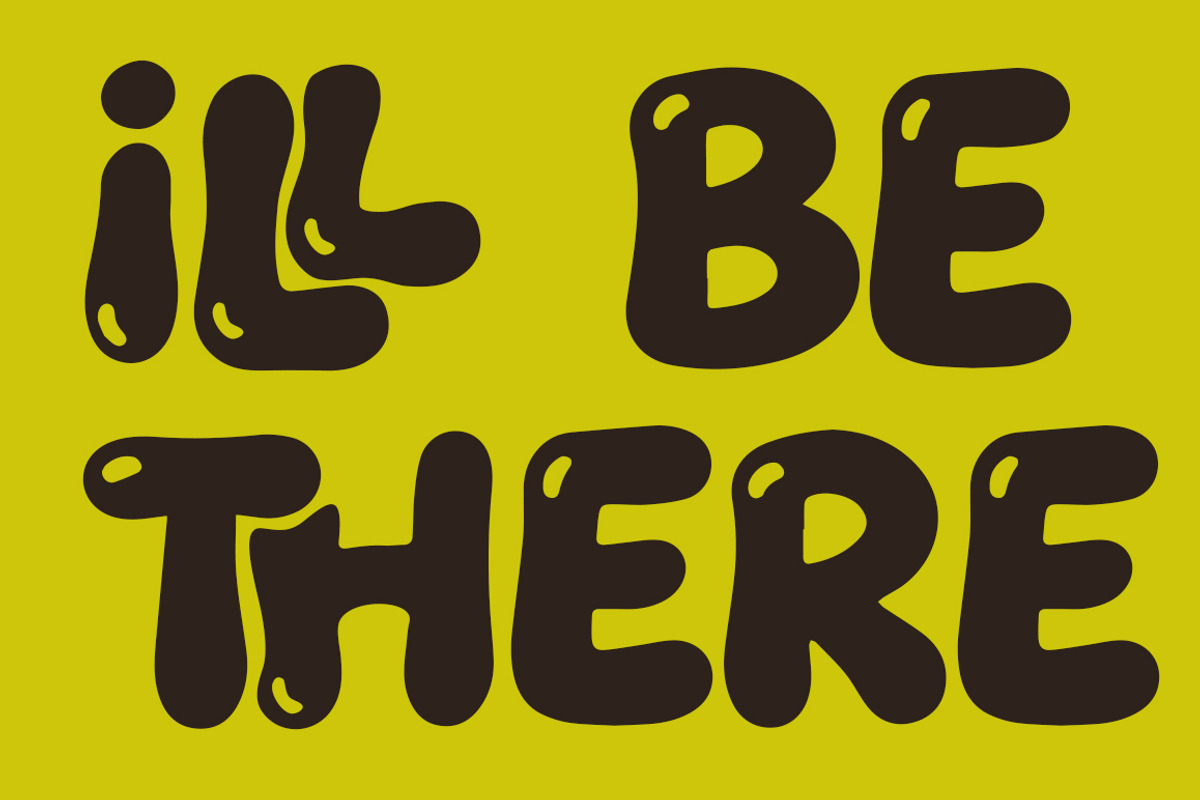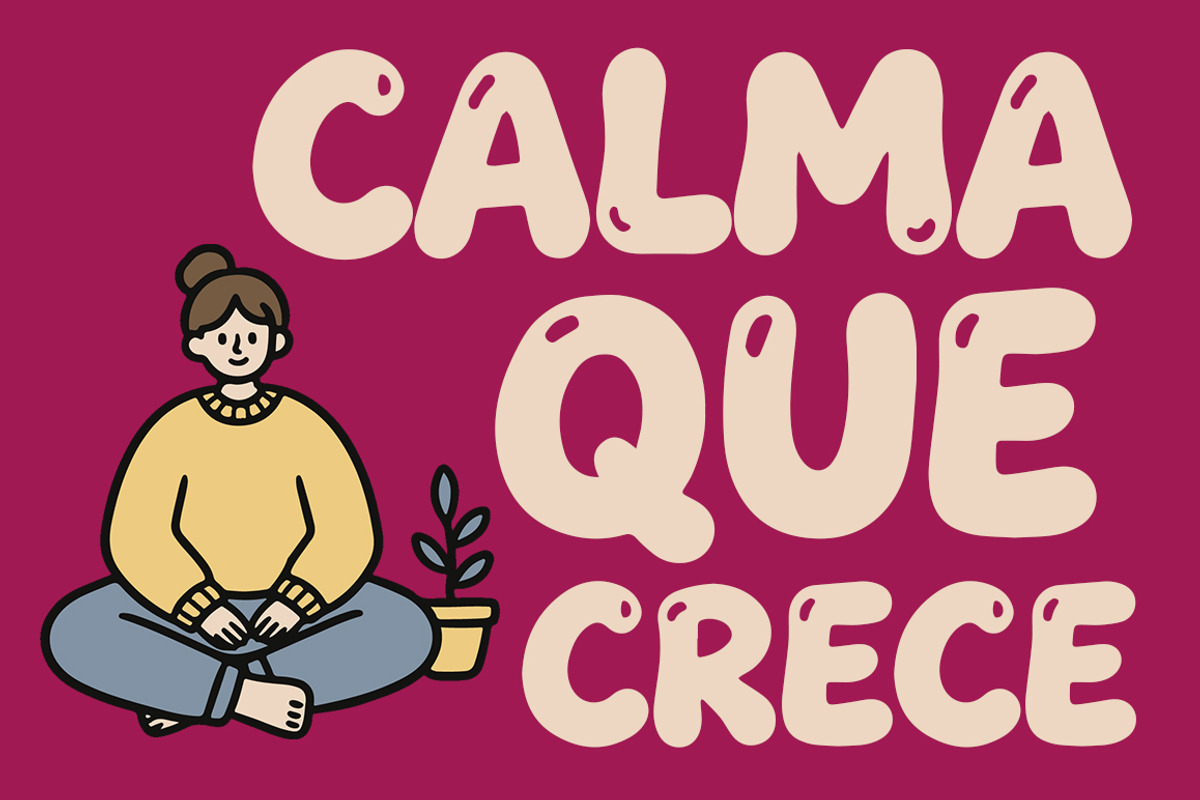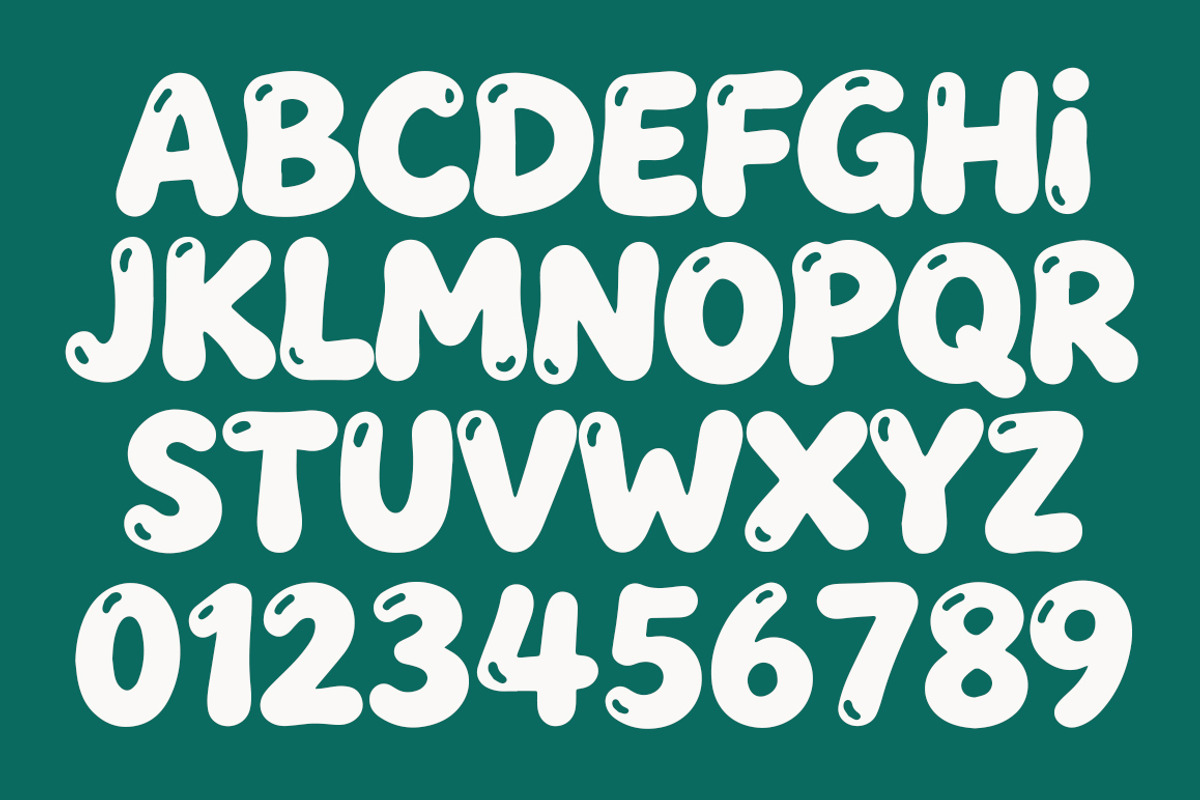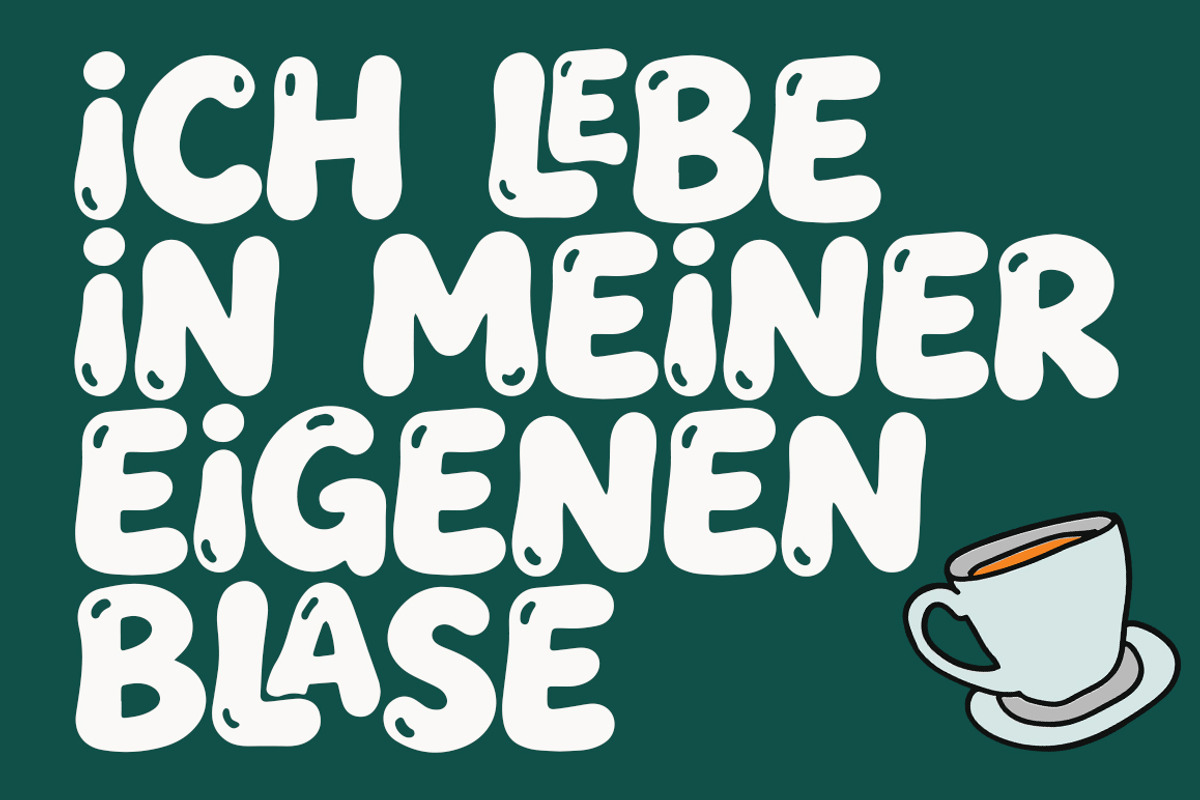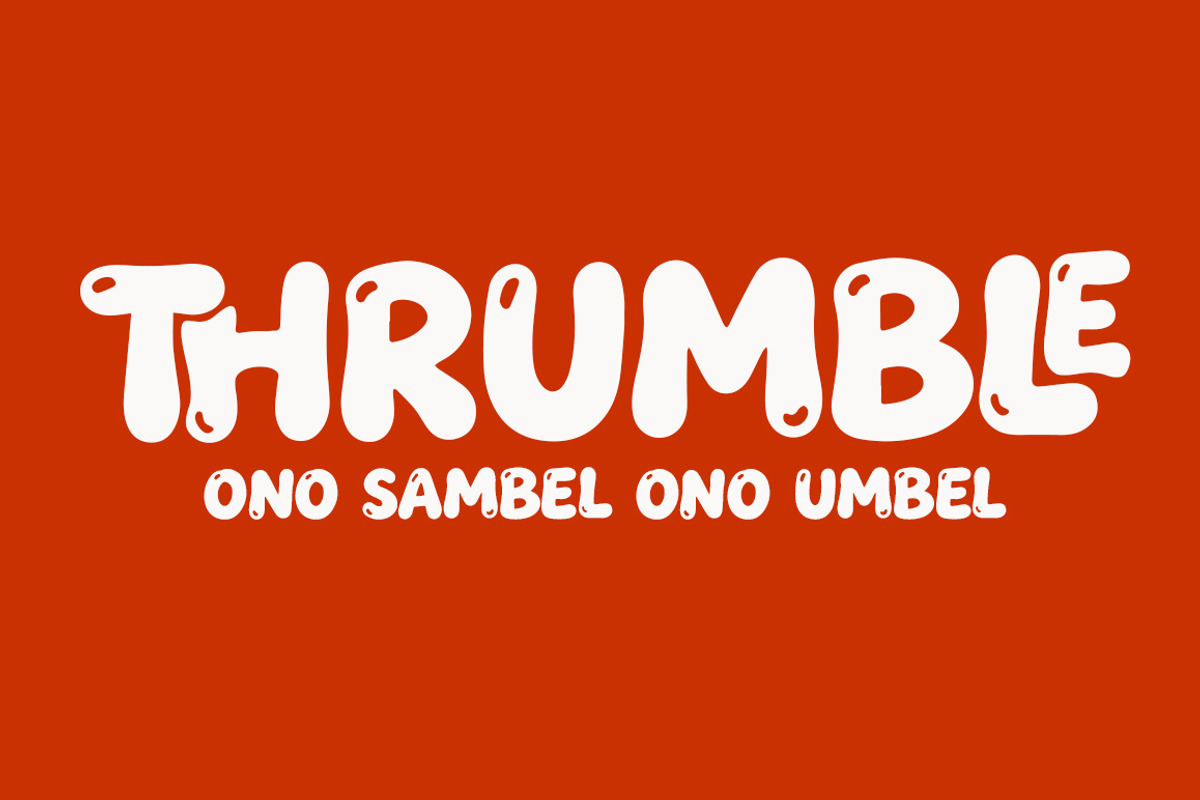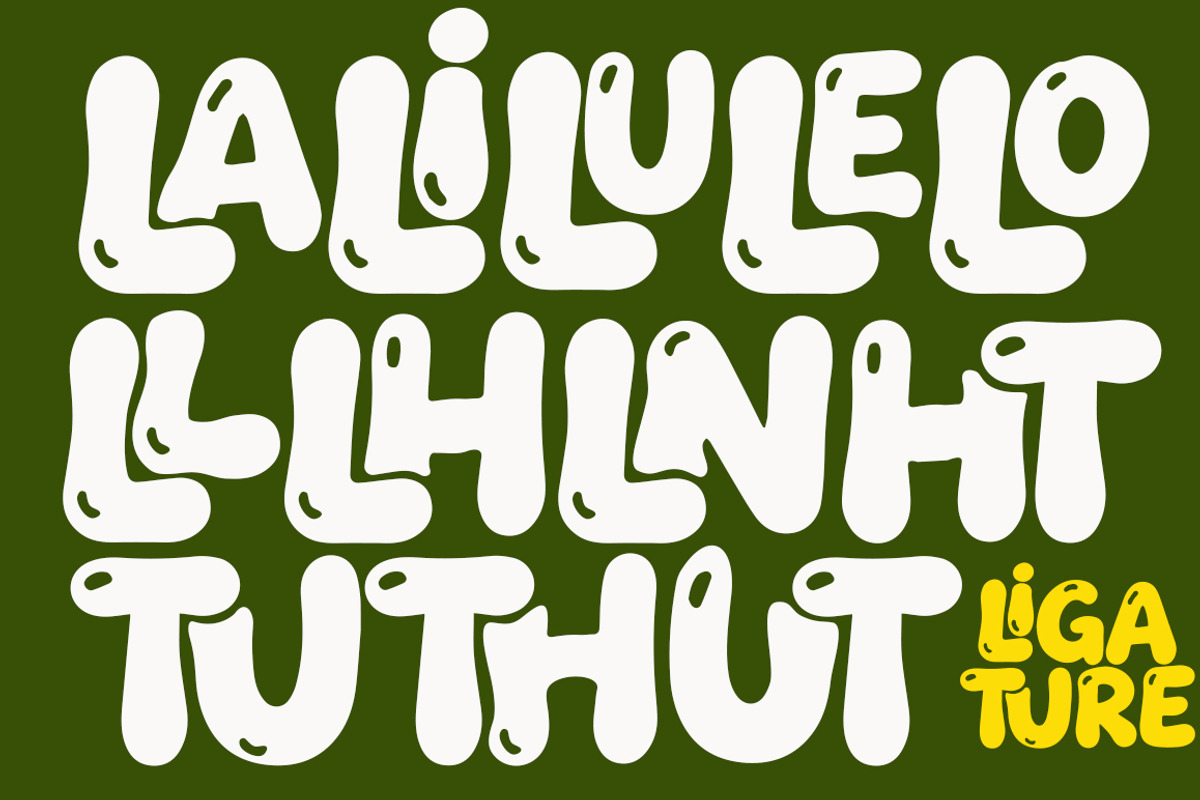
Thrumble
Thrumble is a bold, chunky bubble font with a fun and energetic personality. Designed with soft rounded shapes, bouncy letterforms, and playful imperfections, this font instantly brings a cheerful and friendly vibe to any design. Its thick strokes and cute hand-drawn details make it highly eye-catching while still remaining easy to read.
Thrumble is perfect for designs that need a loud, happy, and expressive voice. Whether you’re creating food branding, snack packaging, kids projects, posters, merchandise, or social media graphics, this font adds a strong visual impact with a touch of humor and charm.
The slightly irregular shapes give it a handmade feel, making your typography look more lively and full of character. It works especially well for bold headlines, logos, and display text where you want the message to stand out and feel approachable.
Perfect for : Food & beverage branding Snack packaging Street food logos Kids design Posters & merchandise Social media graphics Bold headlines